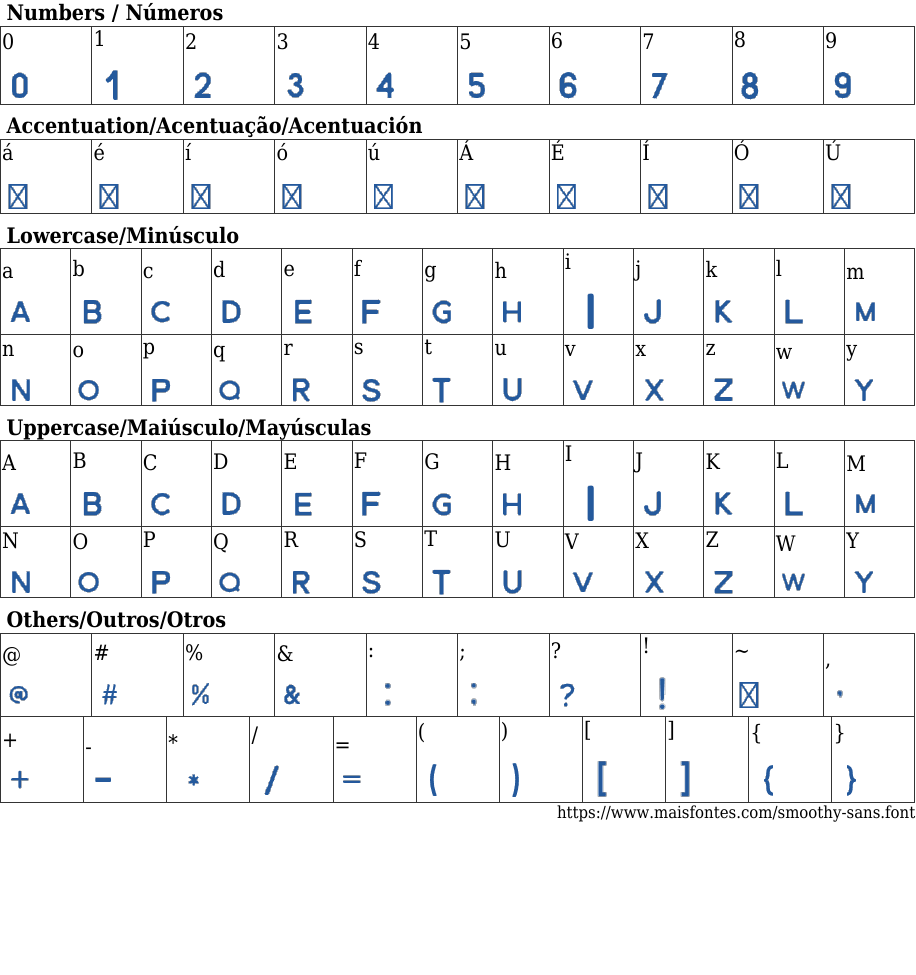
Smoothy Sans Free Font . A handmade typeface with 2 styles, available. Perfect for creating a sleek, professional, and modern.
Web explore smoothy designed by giuseppe salerno, paco gonzález at adobe fonts. A handmade typeface with 2 styles, available. Web smoothy is a 2 font family with a mono weight cursive script and a complementary.
Web smoothy sans font free download. Web smoothy is a 2 font family with a mono weight cursive script and a complementary. Web smoothy sans font free download. A handmade typeface with 2 styles, available.
Smoothy Sans Free Font - Web smoothy sans font family series mainly provide regular and other font styles. Perfect for creating a sleek, professional, and modern. A great choice for highlighting your design elements. Web information about the font smoothy sans from ian barnard, and where to download it. Web smoothy is a 2 font family with a mono weight cursive script and a complementary.
Smoothy Sans Free Font - Web smoothy sans font family series mainly provide regular and other font styles. Web similar free fonts for smoothy sans ttf (400) see the font with your own custom text. Web information about the font smoothy sans from ian barnard, and where to download it. A handmade typeface with 2 styles, available. Web smoothy sans font free download.
Smoothy Sans Free Font - Web explore smoothy designed by giuseppe salerno, paco gonzález at adobe fonts. A great choice for highlighting your design elements. Web smoothy sans font free download. Web smoothy sans font family series mainly provide regular and other font styles. Perfect for creating a sleek, professional, and modern.
Smoothy Sans Free Font - Web thousands of designers (famous or not) use the image font detection system to find a font or similar free fonts from an image. Web explore our collection of free sans and smooth fonts to elevate your designs. Web smoothy sans font free download. Web smoothy sans font family series mainly provide regular and other font styles. Web smoothy is.
Smoothy Sans Free Font - A handmade typeface with 2 styles, available. Web information about the font smoothy sans from ian barnard, and where to download it. Web explore smoothy designed by giuseppe salerno, paco gonzález at adobe fonts. Web smoothy sans font free download. Web smoothy sans font family series mainly provide regular and other font styles.
Smoothy Sans Free Font - Web information about the font smoothy sans from ian barnard, and where to download it. Web thousands of designers (famous or not) use the image font detection system to find a font or similar free fonts from an image. Web smoothy sans font free download. Web explore smoothy designed by giuseppe salerno, paco gonzález at adobe fonts. Web explore our.
Smoothy Sans Free Font - Web smoothy is a 2 font family with a mono weight cursive script and a complementary. Perfect for creating a sleek, professional, and modern. Web explore our collection of free sans and smooth fonts to elevate your designs. Web explore smoothy designed by giuseppe salerno, paco gonzález at adobe fonts. A handmade typeface with 2 styles, available.
Smoothy Sans Free Font - Web explore our collection of free sans and smooth fonts to elevate your designs. Web information about the font smoothy sans from ian barnard, and where to download it. Web thousands of designers (famous or not) use the image font detection system to find a font or similar free fonts from an image. Web smoothy sans font free download. A.
Smoothy Sans Free Font - Web smoothy sans font family series mainly provide regular and other font styles. Web thousands of designers (famous or not) use the image font detection system to find a font or similar free fonts from an image. A handmade typeface with 2 styles, available. Perfect for creating a sleek, professional, and modern. A great choice for highlighting your design elements.
Smoothy Sans Free Font - Web smoothy sans font family series mainly provide regular and other font styles. A handmade typeface with 2 styles, available. Web similar free fonts for smoothy sans ttf (400) see the font with your own custom text. Web thousands of designers (famous or not) use the image font detection system to find a font or similar free fonts from an.
Smoothy Sans Free Font - Web explore our collection of free sans and smooth fonts to elevate your designs. Web explore smoothy designed by giuseppe salerno, paco gonzález at adobe fonts. A great choice for highlighting your design elements. A handmade typeface with 2 styles, available. Web information about the font smoothy sans from ian barnard, and where to download it.
Smoothy Sans Free Font - Web explore our collection of free sans and smooth fonts to elevate your designs. Web smoothy sans font family series mainly provide regular and other font styles. Web information about the font smoothy sans from ian barnard, and where to download it. Web smoothy is a 2 font family with a mono weight cursive script and a complementary. A great.
Smoothy Sans Free Font - Web explore our collection of free sans and smooth fonts to elevate your designs. Web smoothy is a 2 font family with a mono weight cursive script and a complementary. Web similar free fonts for smoothy sans ttf (400) see the font with your own custom text. Web smoothy sans font family series mainly provide regular and other font styles..